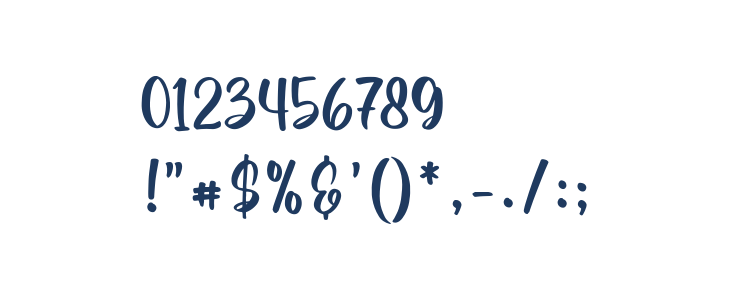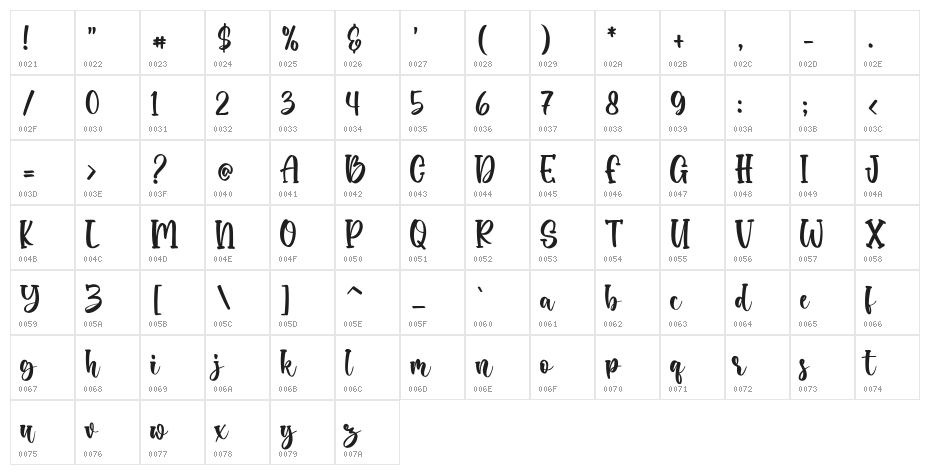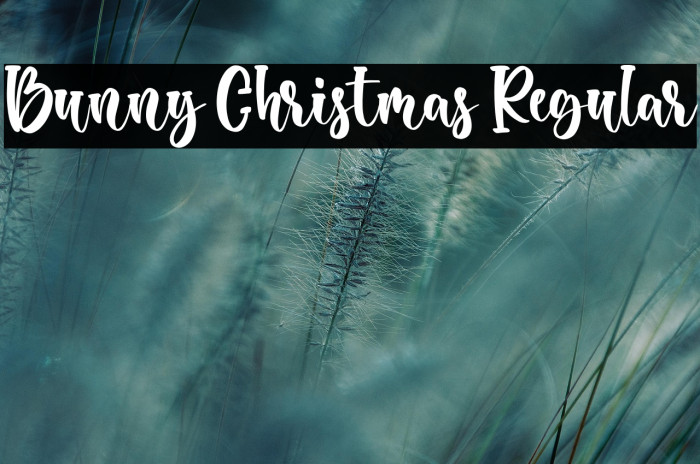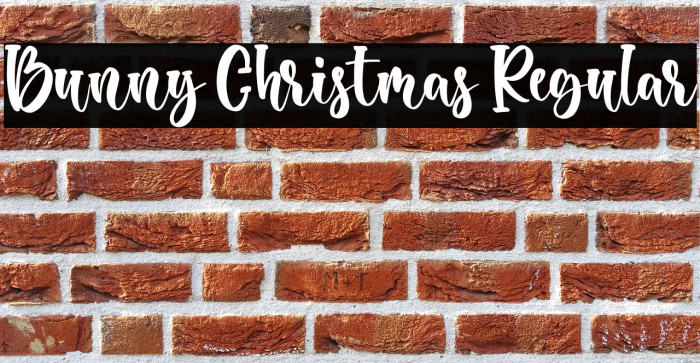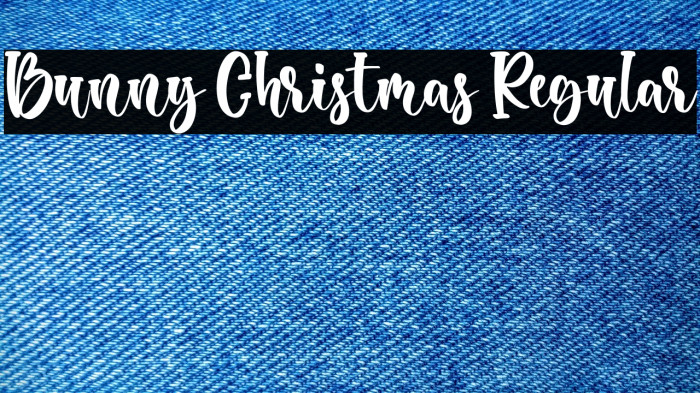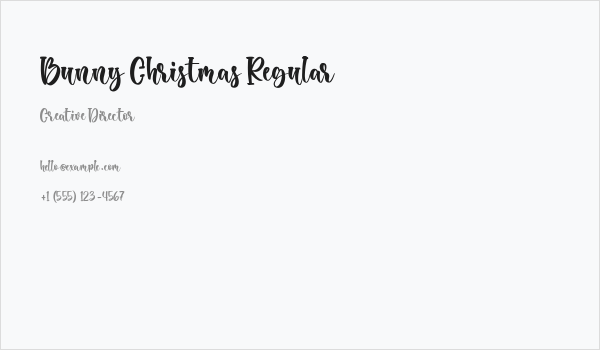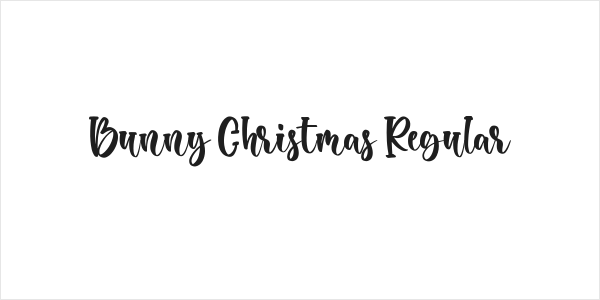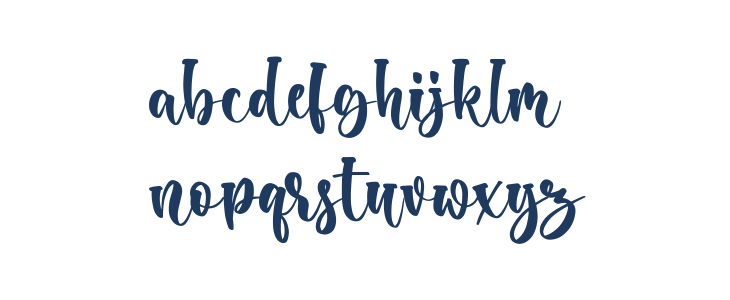
Bunny Christmas Regular Font
Bunny Christmas Regular Description
This font features a playful and festive style, characterized by its bold and flowing script. The uppercase letters are tall and slightly condensed, with whimsical curves and loops that give a sense of movement and joy. The lowercase letters maintain a consistent flow, with some letters extending below the baseline, adding to the dynamic appearance. The numerals are bold and maintain the same playful style, making them easily legible. Special characters are creatively integrated, maintaining the overall festive theme. This font is perfect for holiday-themed projects, adding a touch of cheer and personality.
| Proposed Projects | Ideal for holiday cards, festive invitations, seasonal branding, and decorative posters. |